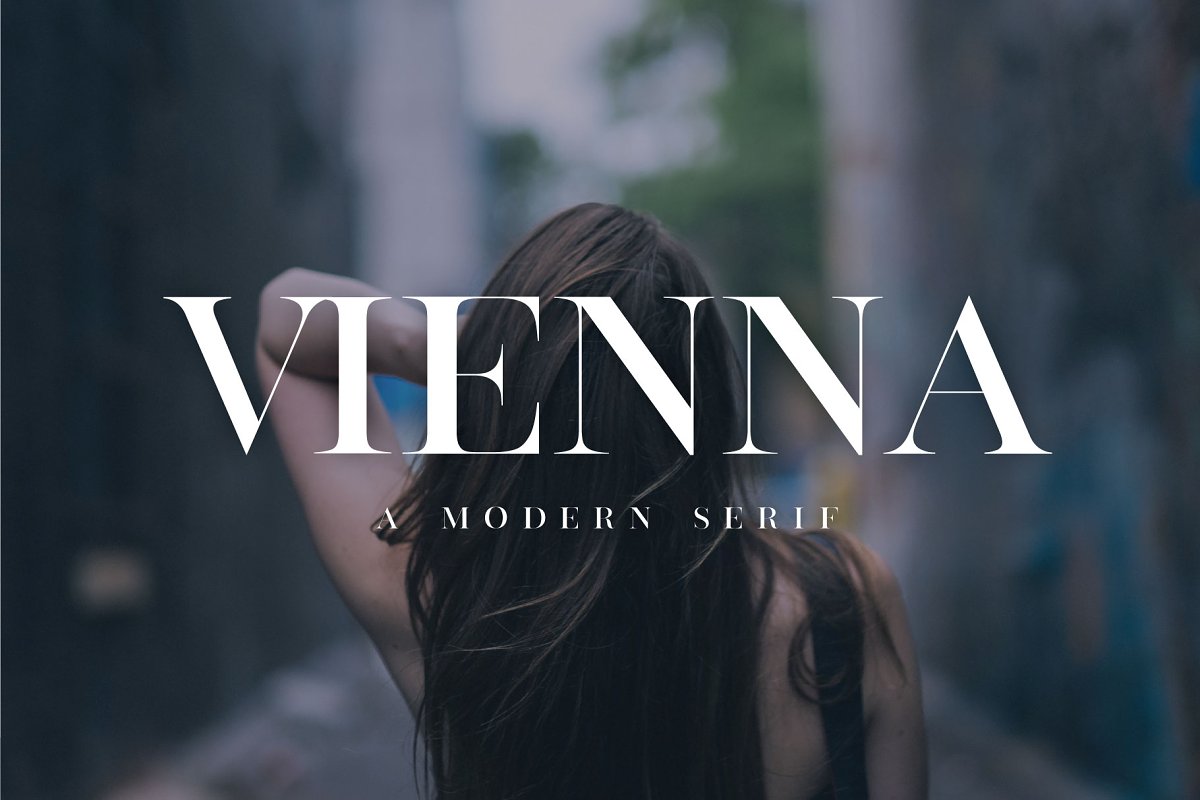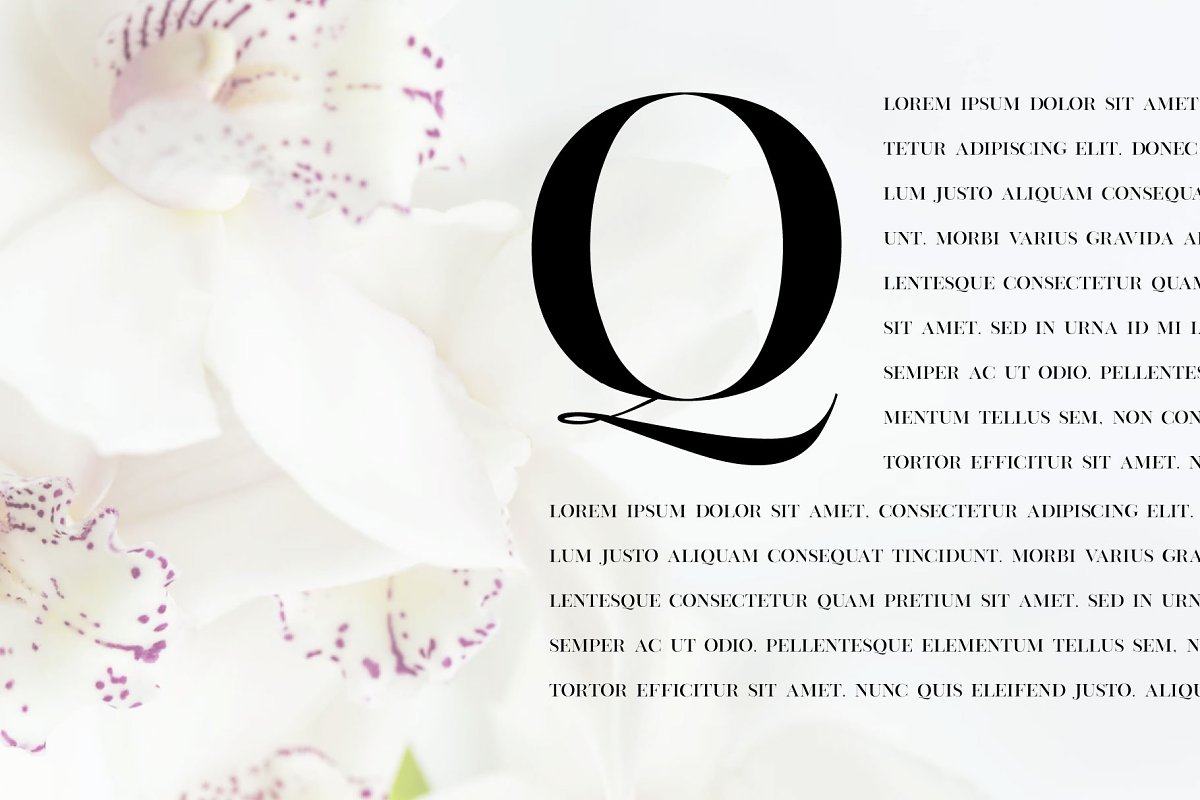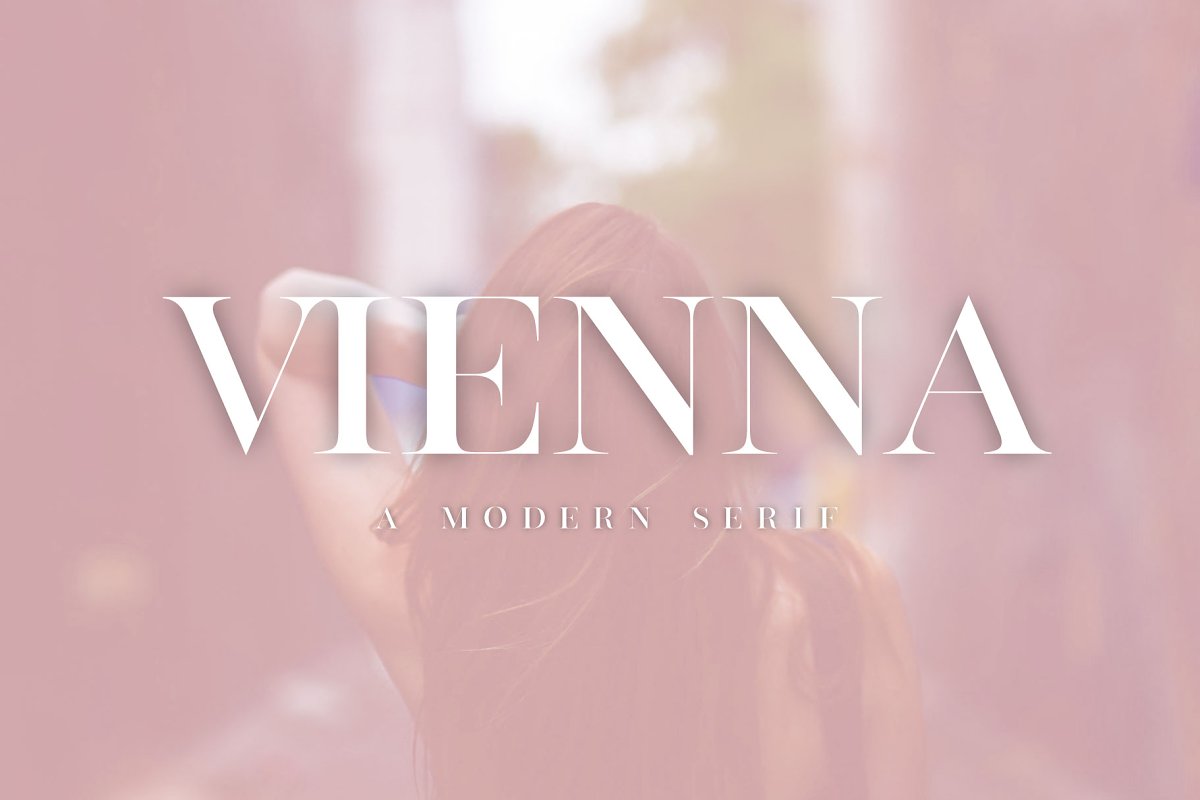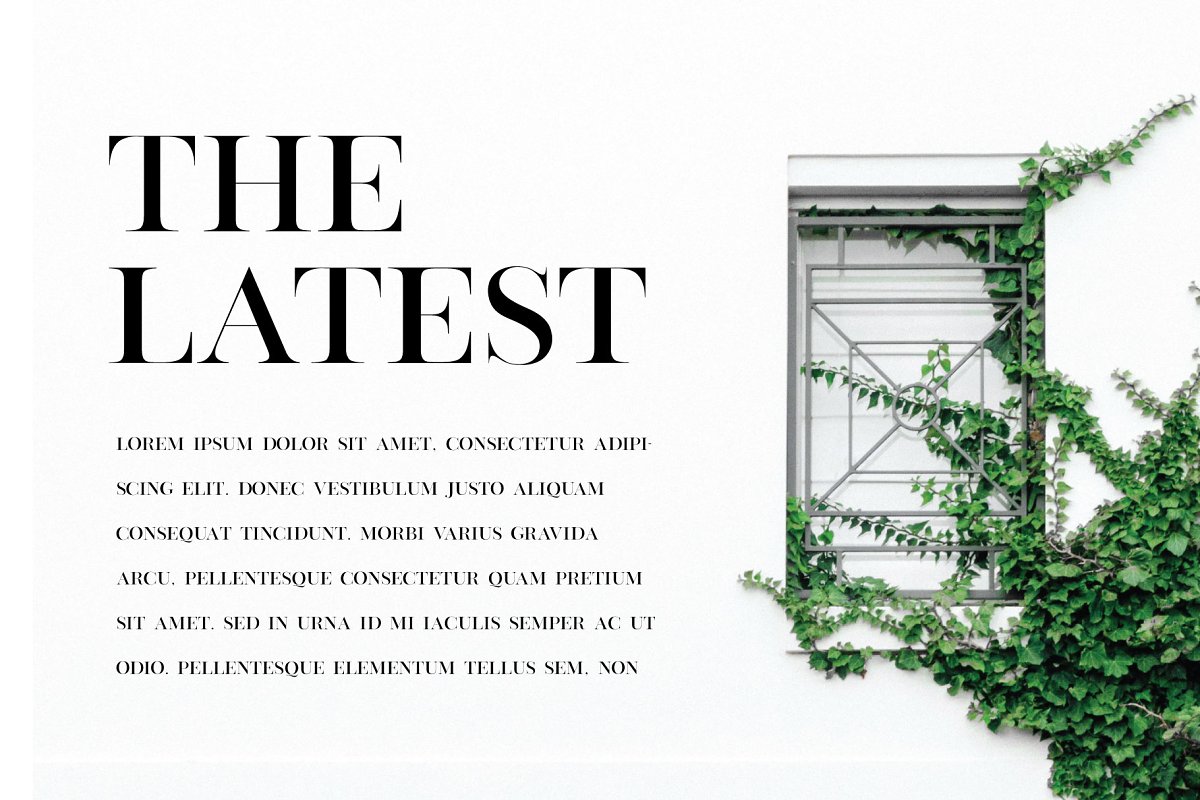
About the Vienna Modern Serif Font
Vienna is a modern, minimal and classy serif font that is perfect for editorial use, This font would pair perfectly with a script/signature or handwritten style text or as you can see in the images above, it looks fab by itself! This font contains all uppercase english alphabet, numbers and basic punctuation, (If you’re having trouble finding the basic punctuation, you can access it in the Glyphs panel)Please let me know in the comments what you think or if you have any questions/requests!Font comes in